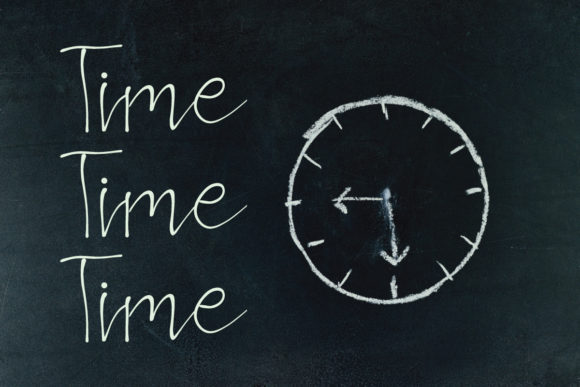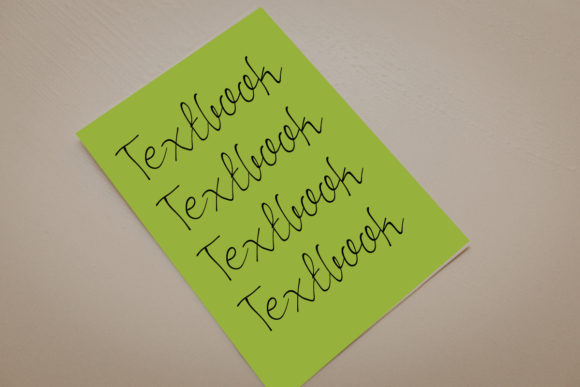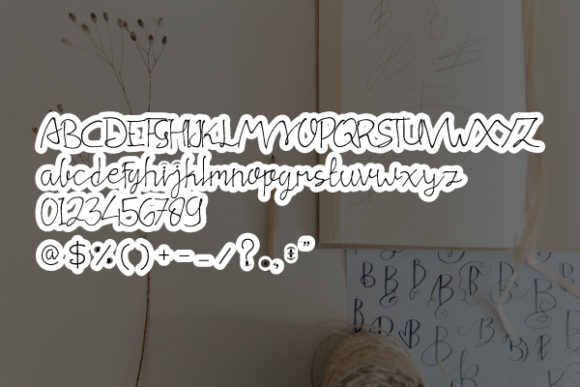
Introducing Handwritten Font: A Simple and Cute Addition to Your Designs
Are you looking for a font that adds a touch of innocence and playfulness to your creations? Look no further than the Handwritten Font. This delightful font is perfect for designers and crafters who want to bring a sense of childhood wonder to their work. With its simple and cute handwritten style, it’s ideal for writing letters to Santa, creating whimsical signs, or adding a personal touch to your digital and print projects.
The Charm of Handwritten Font
Handwritten Font is a charming and endearing typeface that mimics the handwriting of a child. Its irregularities and imperfections give it a unique, homemade feel that’s sure to capture the hearts of your audience. The font’s simplicity and legibility make it easy to read and understand, while its playful flair adds a dash of personality to any text.
Perfect for Whimsical Designs
Whether you’re a designer, crafter, or DIY enthusiast, Handwritten Font is the perfect choice for creating whimsical and eye-catching designs. Use it to:
- Create adorable signs and posters for kids’ parties, nursery decor, or children’s book illustrations.
- Add a personal touch to your digital and print projects, such as invitations, greeting cards, or certificates.
- Design festive and fun holiday-themed projects, like Christmas cards, Halloween decorations, or Easter egg designs.
- Develop engaging and interactive content for kids, such as educational materials, activity sheets, or storybooks.
Key Features of Handwritten Font
Here are some of the key features that make Handwritten Font a standout choice for designers and crafters:
- Simple and cute design: The font’s playful and innocent style is sure to delight your audience.
- Childlike handwriting: The font’s irregularities and imperfections give it a unique, homemade feel.
- Easy to read: Despite its playful style, the font is clear and legible, making it perfect for body text and headings.
- Versatile: Use it for digital and print projects, from signs and posters to invitations and certificates.
Tips for Using Handwritten Font
To get the most out of Handwritten Font, here are some tips to keep in mind:
- Pair it with complementary fonts: Combine Handwritten Font with other fonts to create visual interest and contrast.
- Experiment with colors and textures: Add an extra layer of whimsy to your designs with bright colors, patterns, and textures.
- Use it for headings and titles: Handwritten Font is perfect for headings and titles, where its playful style can shine.
- Don’t be afraid to get creative: Handwritten Font is a versatile font that can be used in a wide range of projects, so don’t be afraid to experiment and try new things.
Handwritten Font is a delightful and charming typeface that’s perfect for designers and crafters who want to add a touch of innocence and playfulness to their creations. With its simple and cute handwritten style, it’s ideal for a wide range of projects, from whimsical signs and posters to festive holiday-themed designs. So why not give it a try and see how Handwritten Font can bring a dash of childhood wonder to your work?